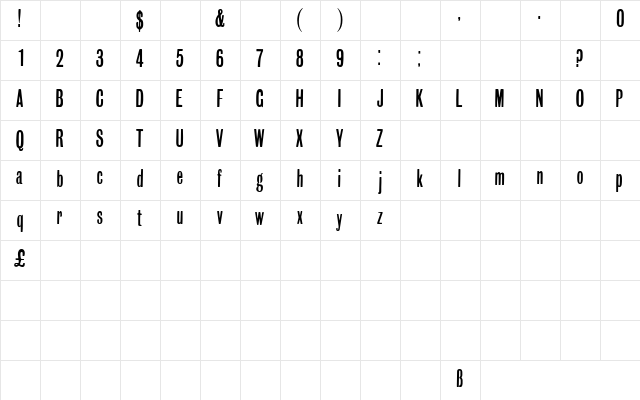
FreakE Regular Font Preview
FreakE Regular
Design Context for FreakE Typeface
FreakE offers clean, dependable letterforms without strong stylistic allegiance, making it a practical choice for designers who need flexibility.